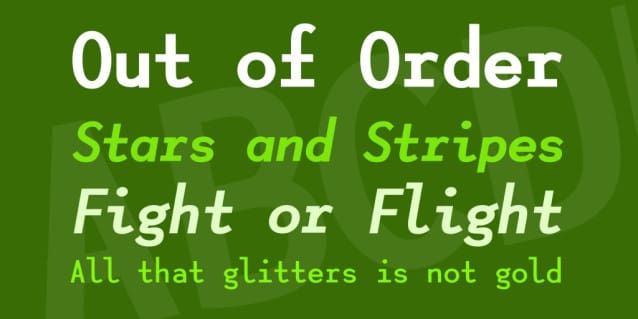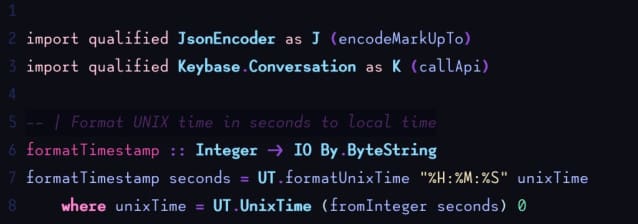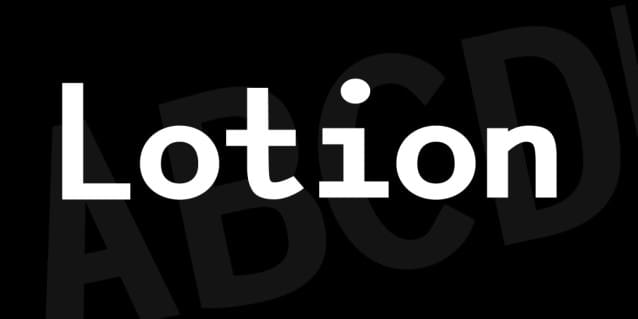
Lotion Font Family, a bold statement with our latest sans-serif font. With its clean lines and modern appeal, this font is sure to turn heads and leave a lasting impression. Perfect for headlines, logos, and any design that demands attention. It is both functional and stylish, making it a versatile choice for a wide range of design projects.
A fresh, cute free font for programming!
| Designer Name: | Nina Belikova |
| Classification: | Sans Serif Fonts |